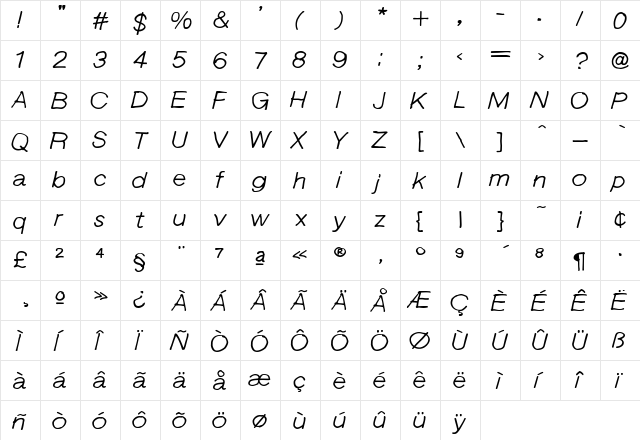
Langer Italic
Design Context for Langer Typeface
Langer offers clean, dependable letterforms without strong stylistic allegiance, making it a practical choice for designers who need flexibility. The dynamic lean of this cut emphasises speed and emphasis in any layout.
Pro Tip: Try Langer for annotation and caption copy alongside an upright companion — the contrast in angle creates a dynamic but ordered typographic system.